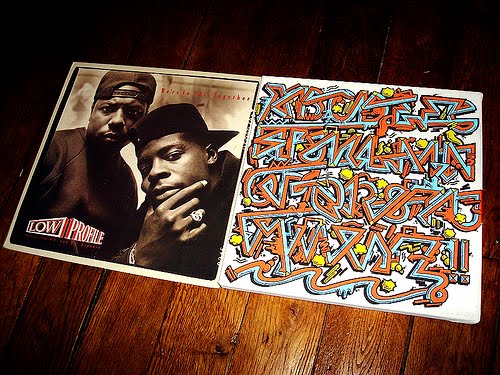
Free and Premium Quality Fonts - Best Premium FontsThe characters in this font can be seamlessly mixed matched with those of the main wildstyle font family to add more variety expand the possibilities however wild basic can also be used as a stand alone font with 82 characters to offer including a solid fill style for lowercase letters. Individual styles for this font may be available for purchase only in family packages. You can customize your experience with live font previews.
Wicked graffiti fonts wildstyle. Our selection of carefully curated graffiti style typefaces includes exclusive upgraded versions only available here. This font also includes a number of simple graffiti dingbats like spray cans crowns and a repeatable cloud background. More about this family. Classics baskerville futura garamond alongside hot new fonts conneqt gelicalaca pro.
Download 163 free graffiti fonts. Wildstyle was published by graffiti fonts. Developed in 2003 and first widely released in 2005 as part of the graffiti fonts 30 collection this family was the first digital font to feature connecting wildstyle graffiti letters. Wildstyle contains 5 styles and family package options.
These improved versions preserve all of the original designers work. Wildbasics is an add on to our wildstyle font family. A throw up involves more work than tagging usually having two or three colors and done in bubble letters. This font is an compatible with our full wildstyle font family.
Wild basic can also be used as a stand alone font with 82 characters to offer including a solid fill. Stenciling can be a quick way to produce more complicated graffiti designs and by using two or more layers you can produce color. Characters can be mixed seamlessly with those of the main wildstyle font to add more variety. This is the free version of our wildbasics wildstyle graffiti typeface.